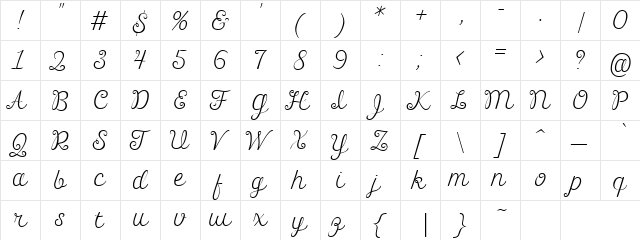
CK Holiday Spirit Regular
Design Context for CK Holiday Spirit Typeface
CK Holiday Spirit takes a measured approach to typography — its balanced proportions and neutral character make it a reliable workhorse for both digital and print work.